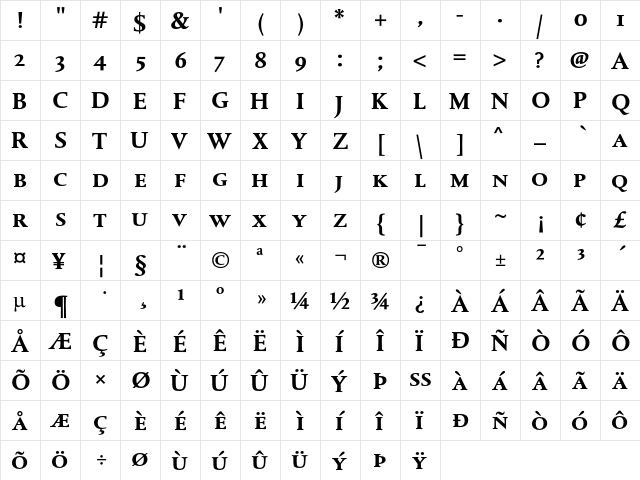
DTL Albertina T Caps Bold
Design Context for DTL Albertina Typeface
DTL Albertina takes a measured approach to typography — its balanced proportions and neutral character make it a reliable workhorse for both digital and print work. The heavy weight commands attention and anchors typographic hierarchies.
Pro Tip: Pair DTL Albertina with a font of contrasting weight or personality to build a more expressive typographic hierarchy.